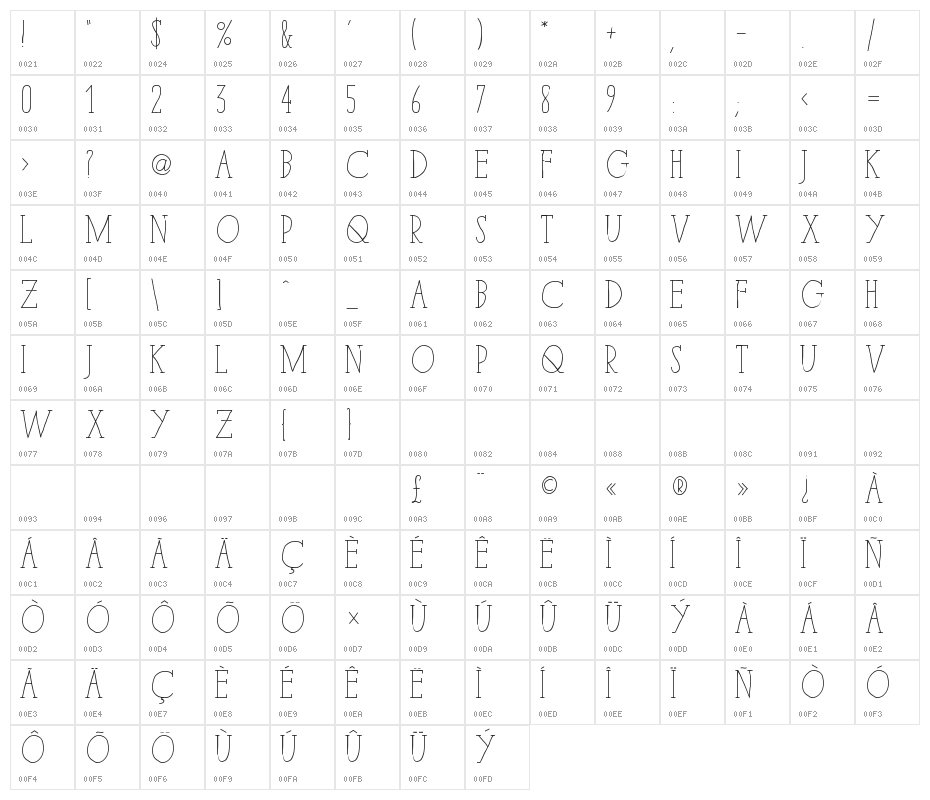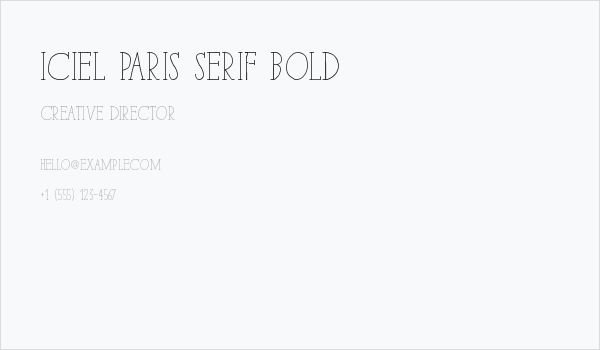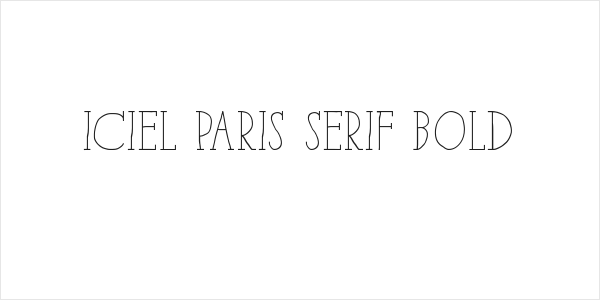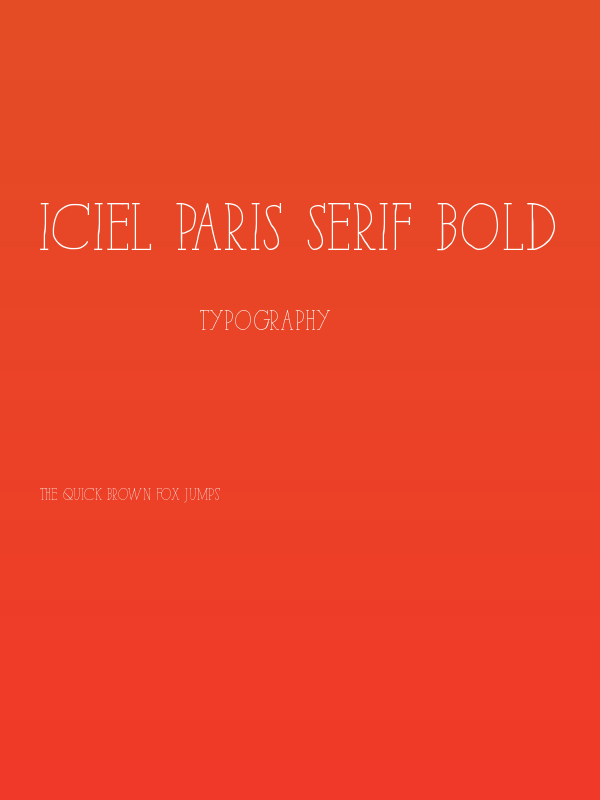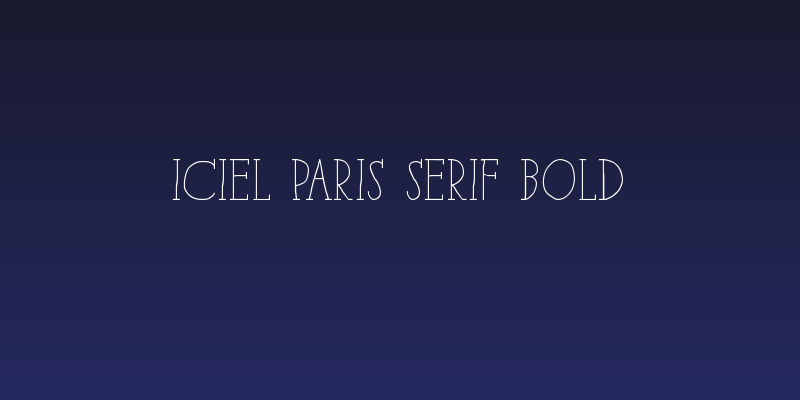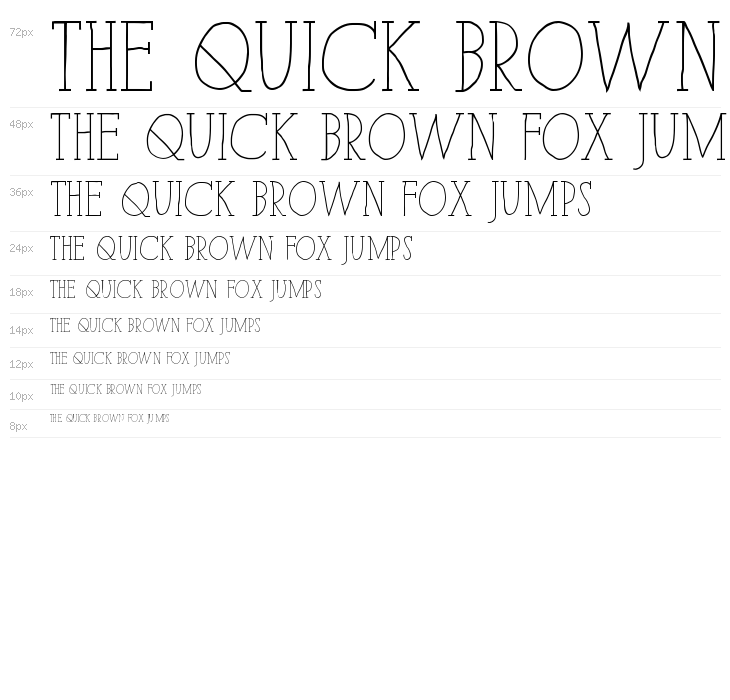
iCiel Paris Serif Bold Font
iCiel Paris Serif Bold Description
This font features a classic serif style with elongated, elegant lines and a refined appearance. The uppercase letters are tall and narrow, giving a sophisticated and formal look. The lowercase letters maintain a consistent style, with delicate serifs that add a touch of grace. The numerals are proportionate and align well with the overall aesthetic, while the special characters complement the font's refined nature. The strokes are consistent in thickness, providing a balanced and harmonious appearance. This font is suitable for projects that require a touch of elegance and tradition.
Overall StyleClassic
Use CaseHeadlines, Logos, Invitations
Proposed ProjectsIdeal for wedding invitations, formal event programs, luxury brand logos, and editorial design.